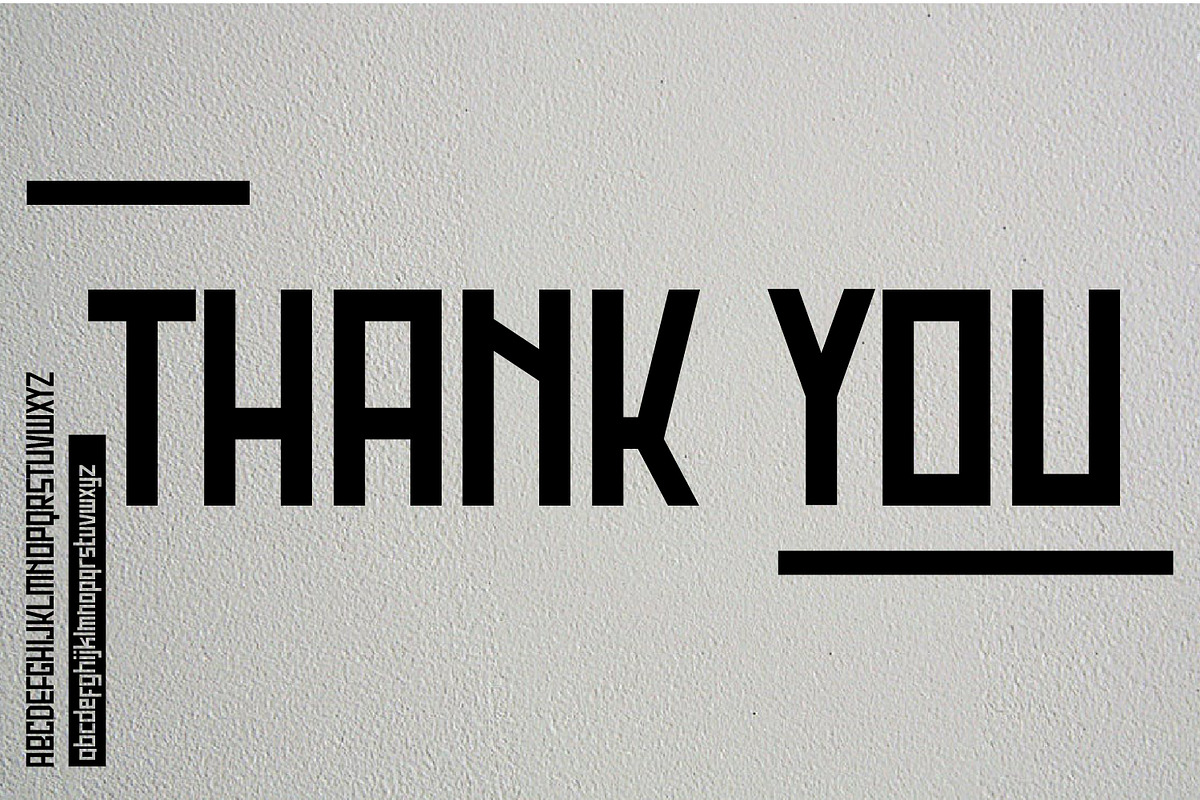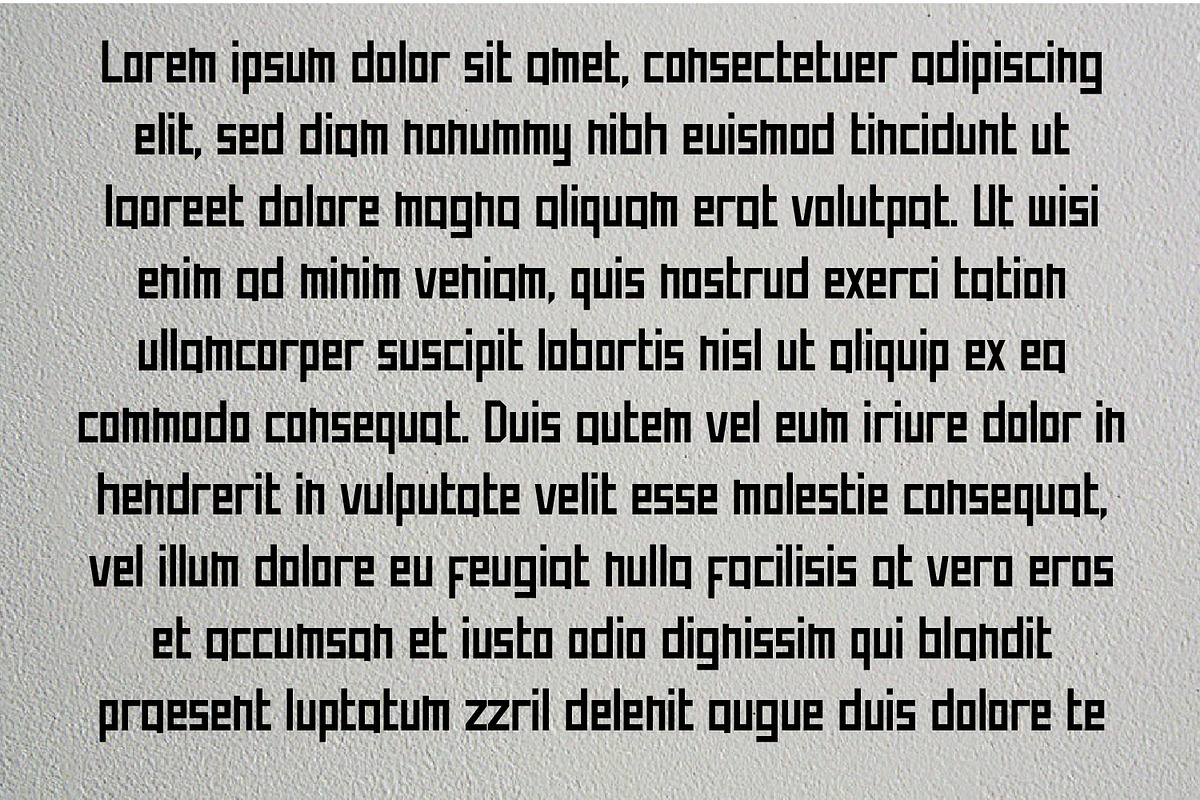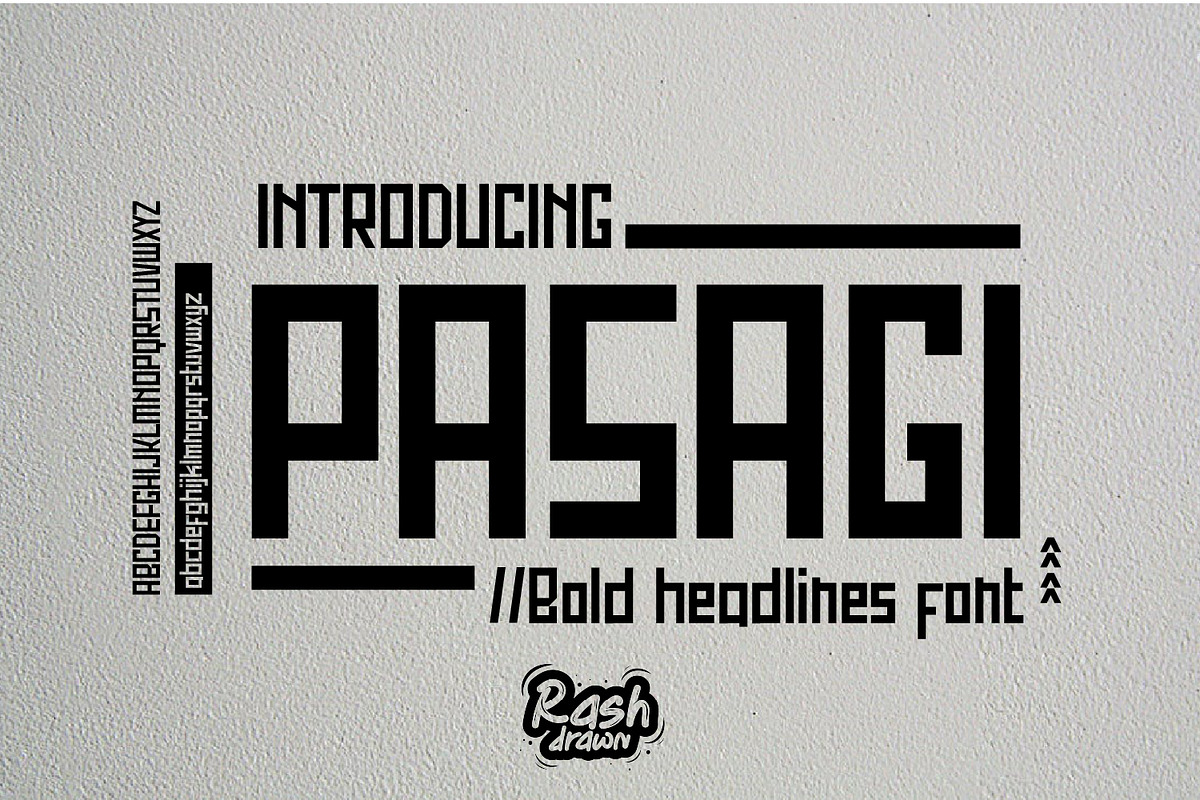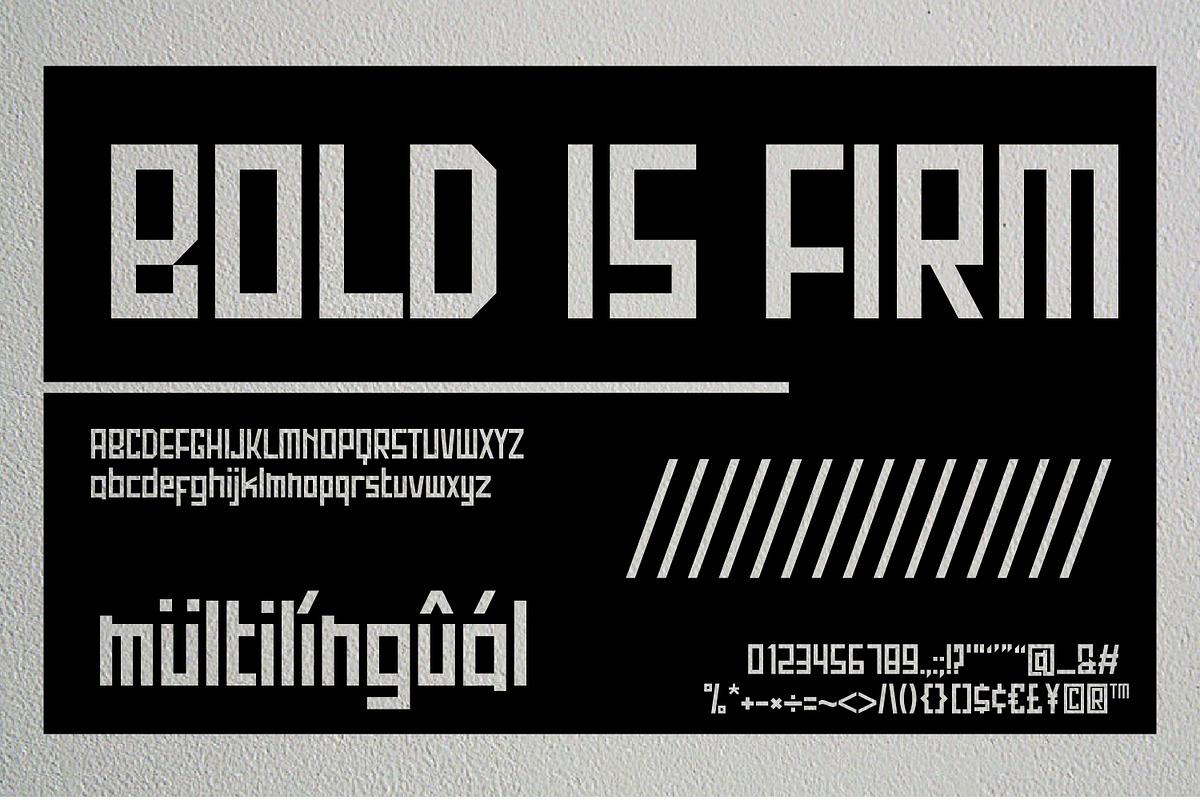
Pasagi
Introducing Pasagi, a modern display typeface take on a thick line style, Pasagi font have unique shape on selective characters, that's sure make your design stand out. Use Pasagi for most any aspect of graphic design, from logo to display designs